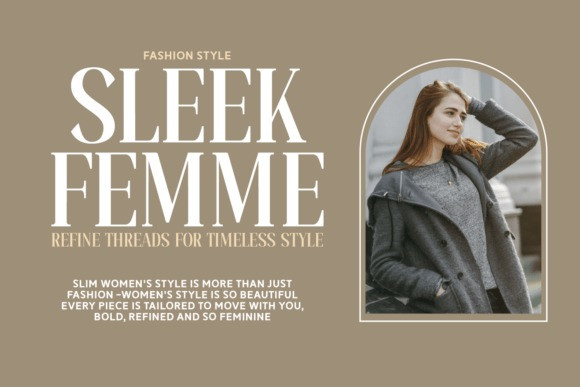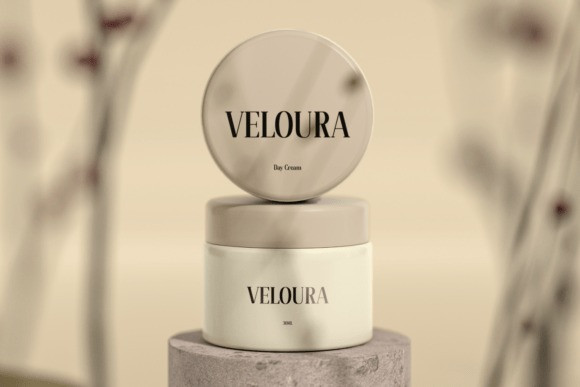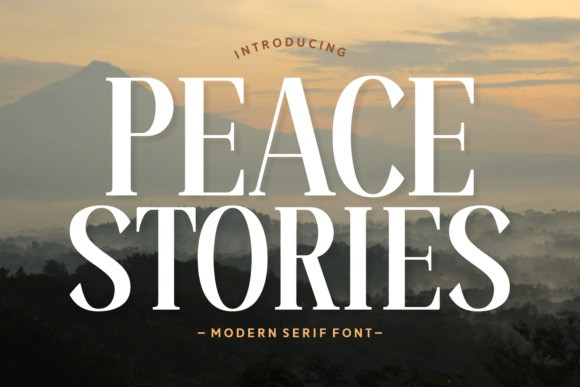
Peace Stories Font
Peace Stories Font a modern serif font. The serene, tranquil, and majestic atmosphere of the scenery perfectly complements the font’s peaceful name and classic style.